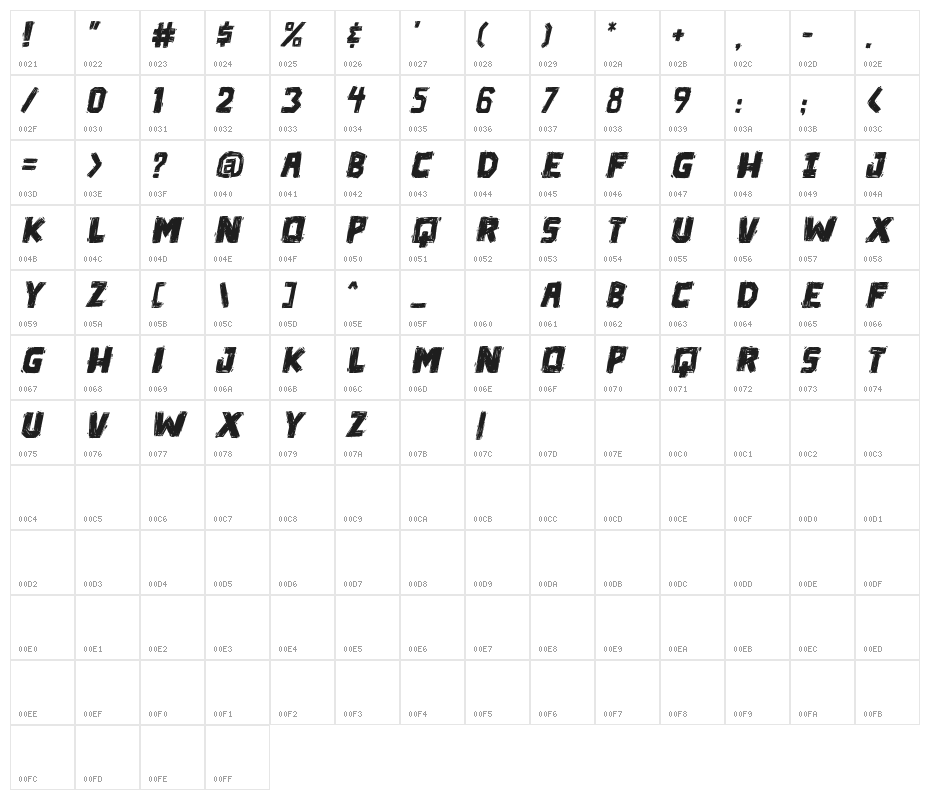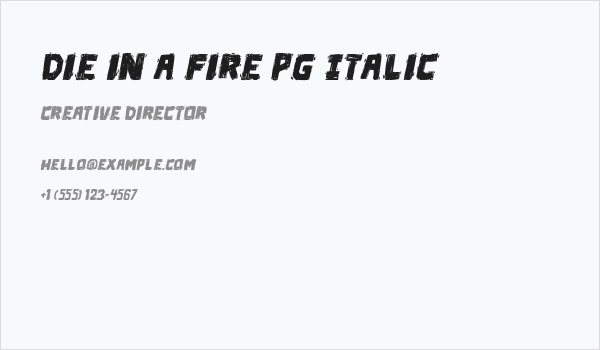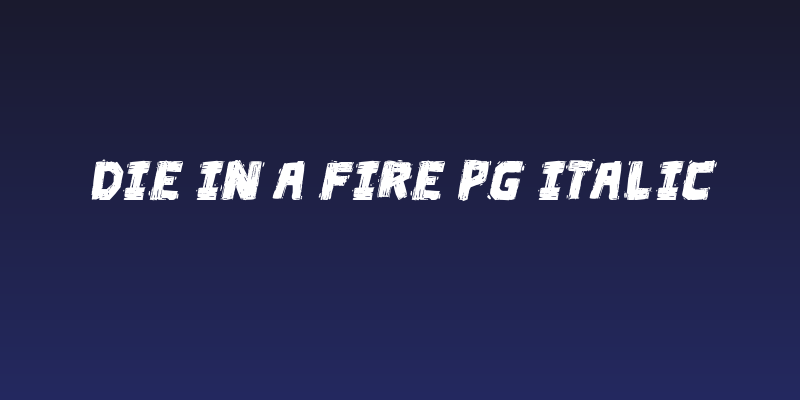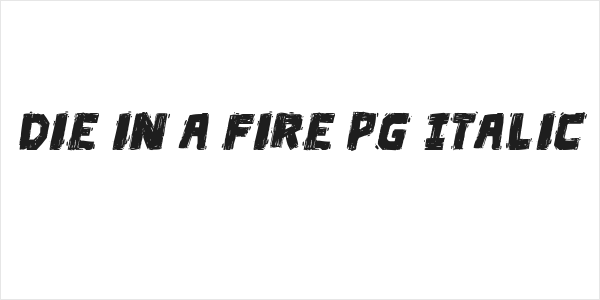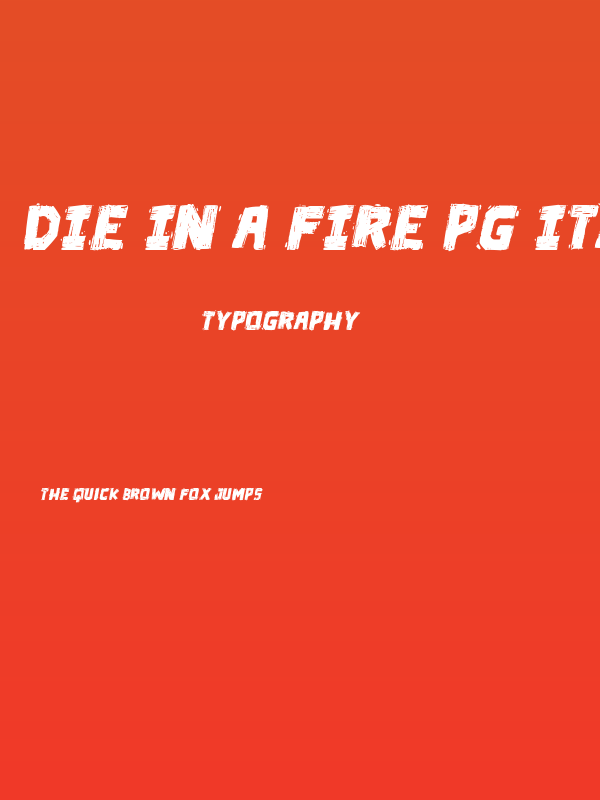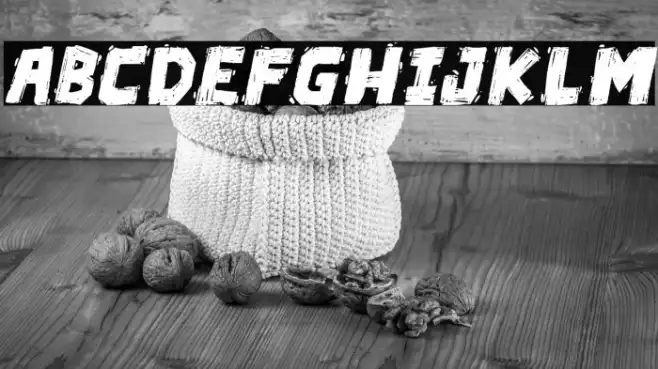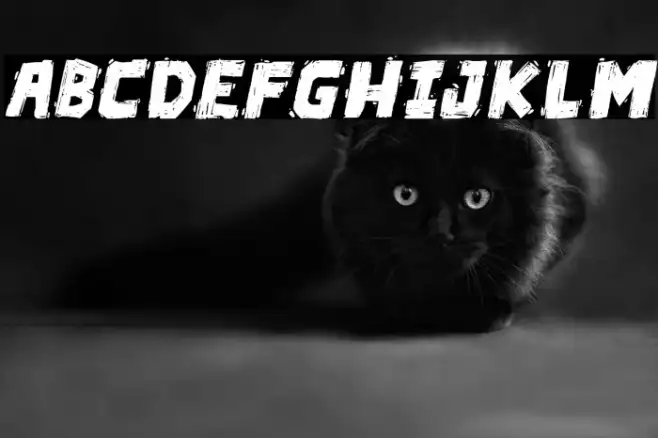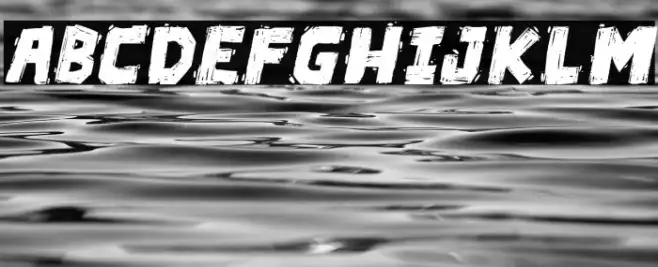
Die in a fire PG Italic Font
Die in a fire PG Italic Description
This font features a bold, distressed style with a rough, textured appearance that gives it a dynamic and edgy look. The characters are italicized, adding a sense of movement and urgency. Each letter and number is uniquely crafted with uneven edges and a grunge effect, making it stand out for creative and unconventional designs. The font maintains a consistent weight throughout, providing a cohesive yet chaotic aesthetic. Its distinctive style is perfect for projects that require a bold statement or a rebellious tone.
| Proposed Projects | Ideal for music album covers, posters, edgy branding, and streetwear designs. |